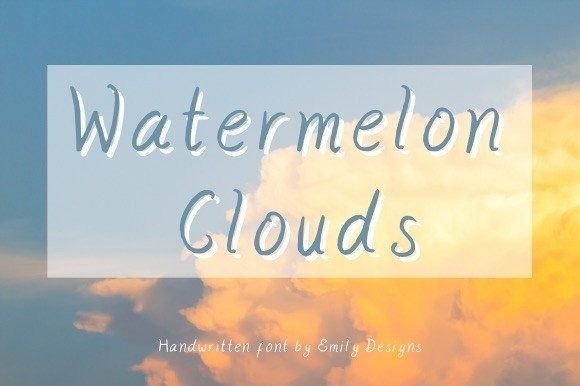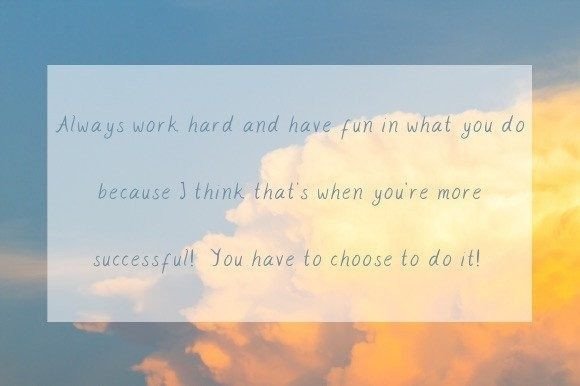
Watermelon Clouds Font
About Watermelon Clouds Font
Watermelon Clouds is a delightful and approachable handwritten font, designed to infuse a sense of fun and friendliness into a variety of creative projects. Whether you’re jotting down journal entries, creating handmade or digital greeting cards, crafting party invitations, or designing coloring book pages, this font adds a whimsical touch to your text.
The charm of Watermelon Clouds lies in its playful and casual strokes, giving your writing a relaxed and friendly vibe. In journal entries, it can bring a lighthearted feel to your thoughts and reflections, making the act of journaling a more enjoyable and visually appealing experience.
For handmade and digital greetings cards, Watermelon Clouds becomes a perfect choice to convey warmth and a personal touch. Its friendly demeanor makes it suitable for various occasions, from birthdays to thank-you notes. The font’s unique character adds an extra layer of personality to your messages, making them stand out and resonate with the recipients.
When it comes to party invitations, Watermelon Clouds brings a sense of festivity to your text. Whether you’re planning a child’s birthday party or a casual get-together, this font sets the tone for a fun and relaxed event. Its handwritten style adds a touch of authenticity, making the invitations feel more personalized.
For coloring book pages, Watermelon Clouds offers a playful and engaging font that complements the whimsy of illustrations. The combination of hand-drawn letters and the overall friendly aesthetic makes it a great choice for creating a joyful coloring experience.
In summary, Watermelon Clouds is more than just a font—it’s a tool for infusing joy and approachability into your written and designed expressions. Its versatility makes it suitable for a range of creative projects, turning the act of writing and designing into a delightful experience. Whether you’re working on personal reflections, heartfelt messages, or invitations to celebrations, let Watermelon Clouds be the font that adds a touch of fun and friendliness to your creations.